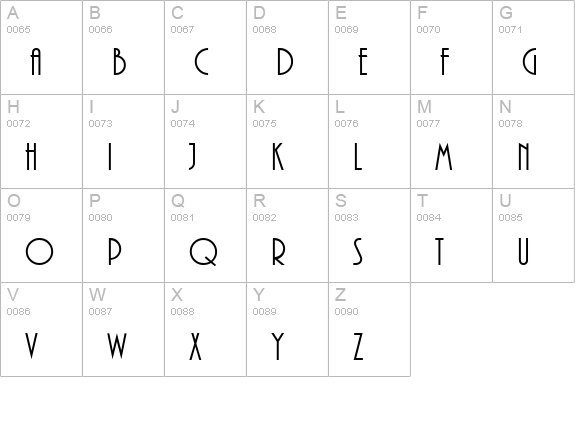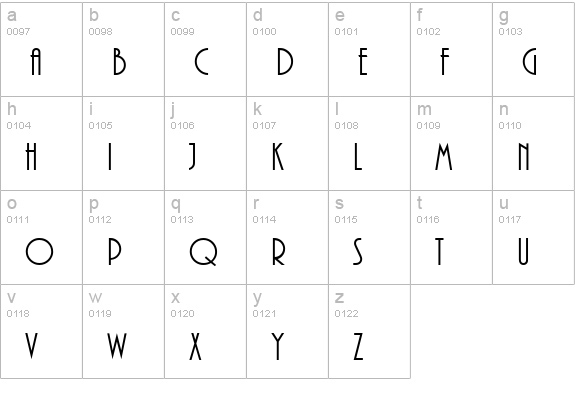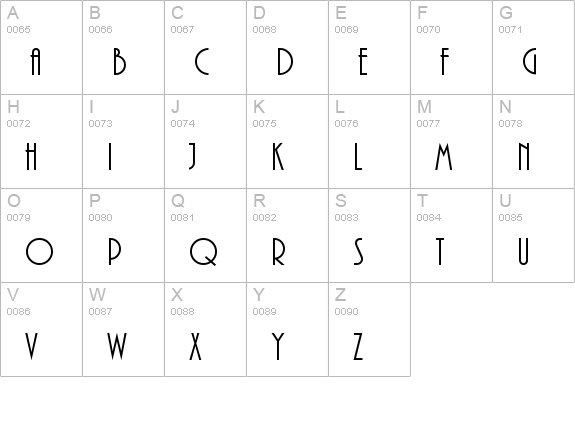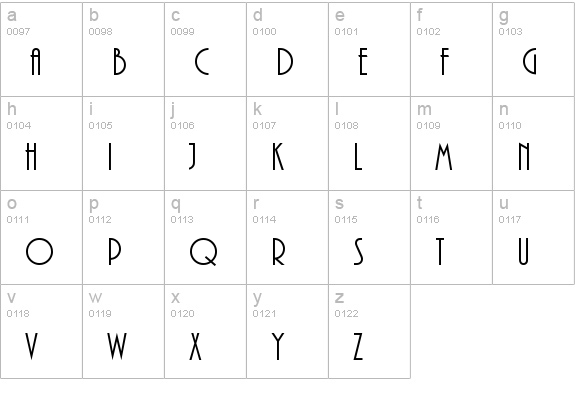
The FFX Marquee font is a stylish and eye-catching typeface that exudes a sense of sophistication and elegance. Its sleek lines and modern design make it a perfect choice for a wide range of creative projects, from branding and advertising to web design and more. With its clean and contemporary look, this font is sure to make a statement and leave a lasting impression. Best of all, the FFX Marquee font is available for free download at FontsMarket.com. This means that you can easily access this versatile typeface and incorporate it into your projects without any cost. Don't miss out on this fantastic opportunity to add a touch of class to your designs with the FFX Marquee font. Download it now and elevate your work to the next level!